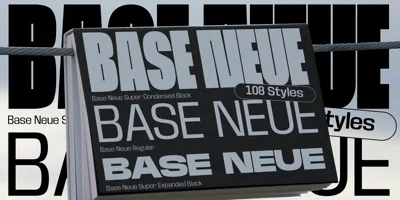
Base Neue Font
Base Neue Font is perfect for modern corporate identity systems, contemporary web design interfaces, minimalist brand communications, tech startup presentations, clean architecture signage, progressive business materials, digital platform designs, modern app interfaces, sleek product packaging, contemporary magazine layouts, and any project that requires essential foundational character with refined contemporary sophistication.
What makes Base Neue Font exciting is its masterful refinement of fundamental typography principles into a contemporary design system that serves as the perfect foundation for modern visual communication across all media platforms. This versatile typeface features clean geometric proportions with essential clarity that provide reliable functionality while maintaining distinctive contemporary character. The font's foundational character adds instant modern credibility and systematic appeal to any design, making it perfect for organizations requiring comprehensive typography solutions and contemporary design consistency.
Base Neue Font comes in multiple font families including Regular, Bold, Light, Thin, Medium, and Extended variations, offering designers comprehensive options to create systematic compositions and achieve the perfect contemporary aesthetic for foundation-focused design projects.
Whether you're developing modern brand identity systems, creating contemporary digital interfaces, or designing progressive communication campaigns, Base Neue Font provides the ideal solution for projects demanding authentic foundational character and contemporary design sophistication. This essential typeface excels in both print and digital applications where systematic presence is essential, ensuring your designs communicate modern professionalism and design system excellence. The clean character and contemporary styling of Base Neue Font make it an indispensable tool for designers who prioritize modern typography, systematic design, and contemporary foundational aesthetics in their typographic selections.